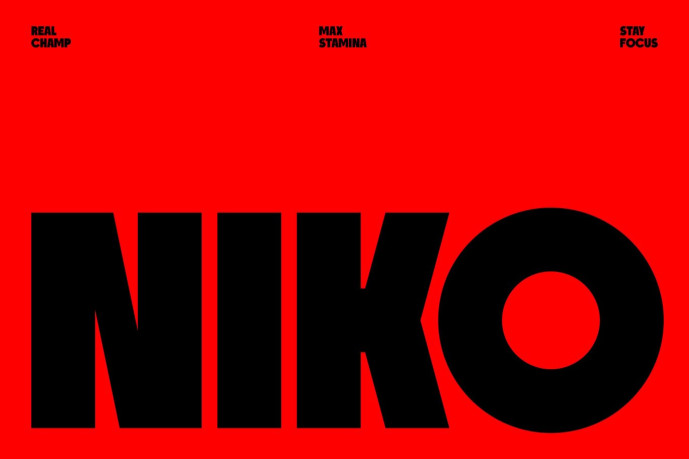
Niko – Bold Sports Display Font
NIKO – Bold Sports Display Font
NIKO – Bold Sports Display Font is crafted for designers who need powerful typography that dominates every layout. Built with geometric letterforms, thick strokes, compact proportions, and clean edges, NIKO delivers exceptional readability while creating bold visual impact. Its athletic personality is perfect for sports branding, boxing promotions, esports graphics, fitness campaigns, editorial headlines, social media content, event posters, and product packaging. Every character is designed to communicate strength, confidence, and modern energy.
Whether you’re creating a sports campaign, gym branding, tournament poster, esports graphic, or motivational social media content, NIKO gives every headline a fearless voice. Its bold structure and modern geometry help designers create attention-grabbing visuals that communicate power, determination, and competitive spirit across both print and digital media.
Bold Athletic Style Designed for powerful headlines and action-driven designs.
Heavy Geometric Letterforms Strong shapes create maximum visibility and readability.
High Visual Impact Perfect for posters, advertising, and promotional graphics.
Creative Versatility Ideal for sports branding, fitness, esports, editorial, packaging, and social media.
Multilingual Support Supports 67 languages for international creative projects.
Professional Ready Optimized for both print production and digital applications.